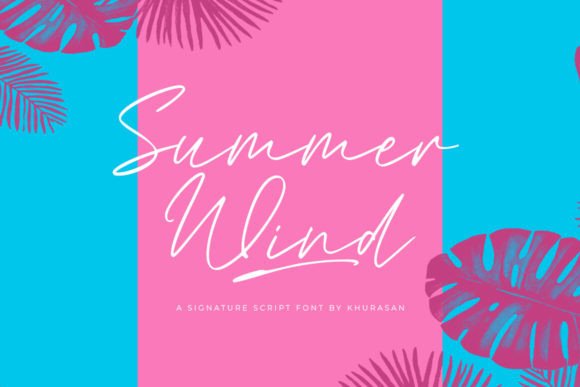
Introduce your designs to the world with Summer Wind Font, a calligraphy script font family that is bursting with sophistication and style. Let your creativity soar as you explore the endless possibilities of this elegant masterpiece. Summer Wind is the ideal choice for crafting stunning wedding programs that exude romance and timeless beauty. Its gentle curves and graceful strokes lend an air of refinement to any design, ensuring that your words flow with heartfelt emotion.
Imagine your wedding invitations adorned with the enchanting script of Summer Wind Font, captivating your guests from the very first glance. The exquisite glyphs dance across the page, creating a symphony of elegance that reflects the joyous occasion. Your wedding program will be transformed into a cherished keepsake, treasured by you and your loved ones for years to come.
Whether you're a seasoned designer or just starting your creative journey, Summer Wind Font is your perfect companion. Its versatility knows no bounds, lending itself seamlessly to a myriad of projects. Create captivating posters that demand attention, design logos that radiate professionalism, or elevate your magazine covers with a touch of sophistication. Let Summer Wind Font ignite your imagination and unveil the true potential of your designs.
Step into a world of creative freedom with Summer Wind Font, where your ideas take center stage. Its clean and stylish design makes it a perfect fit for book covers, banners, and any project that calls for a touch of understated elegance. The possibilities are endless, waiting for you to explore and unleash your inner artist.